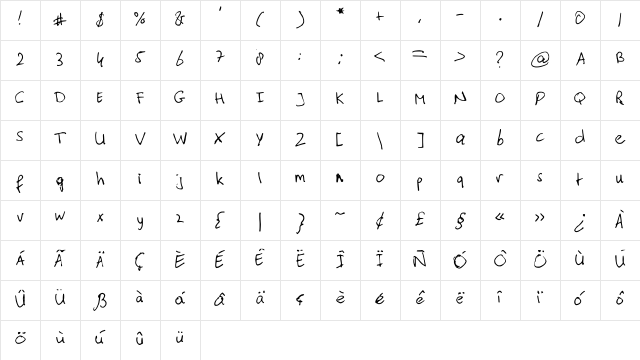
typischvoornu2014 Medium
Design Context for typischvoornu2014
typischvoornu2014 is a composed and adaptable typeface that performs quietly and consistently across a wide range of design contexts.